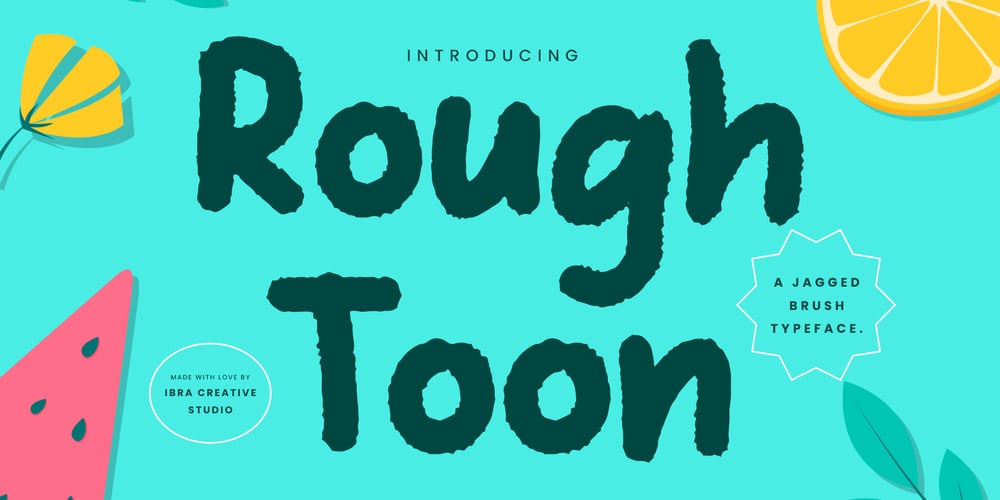
Rough Toon Font Family was designed by Roisatul Azizah and published by IbraCreative. Rough Toon contains 1 styles and family package options. Rough Toon – A Jagged Brush TypefaceRough Toon, an avant-garde jagged brush typeface, unleashes a dynamic and bold energy with every stroke. Each character is meticulously crafted with rugged edges, giving it a raw and unconventional aesthetic. This typeface doesn’t shy away from imperfections; instead, it embraces the untamed, chaotic beauty of hand-drawn artistry. Rough Toon injects a dose of edgy character into design projects, capturing attention with its unique blend of rough contours and expressive flair. Whether used for eye-catching headlines, graffiti-inspired designs, or urban-themed branding, Rough Toon stands as a testament to the rebellious charm of imperfection, making it a distinctive choice for those seeking to infuse their creations with an unapologetic and bold artistic statement. Rough Toon is perfect for branding projects, logo, wedding designs, social media posts, advertisements, product packaging, product designs, label, photography, watermark, invitation, stationery, game, fashion and any projects.Fonts include multilingual support for; Afrikaans, Albanian, Czech, Danish, Dutch, English, Estonian, Finnish, French, German, Hungarian, Italian, Latvian, Lithuanian, Norwegian, Polish, Portuguese, Slovak, Slovenian, Spanish, Swedish.